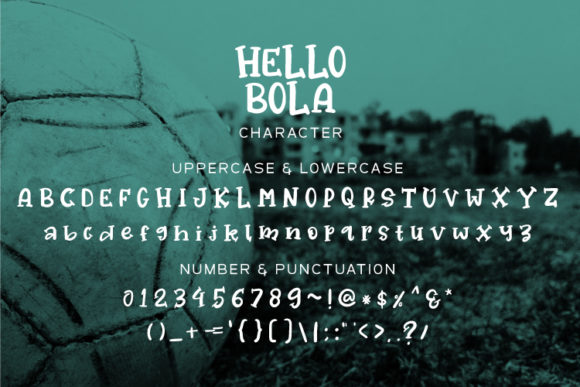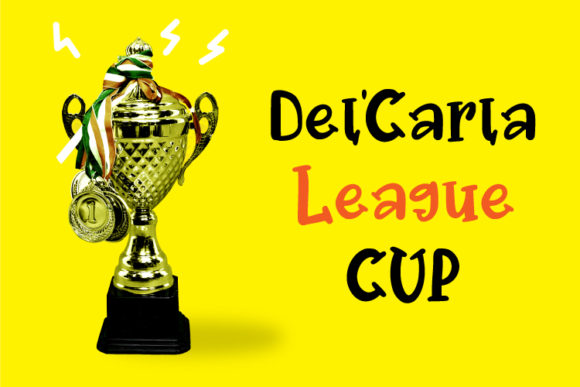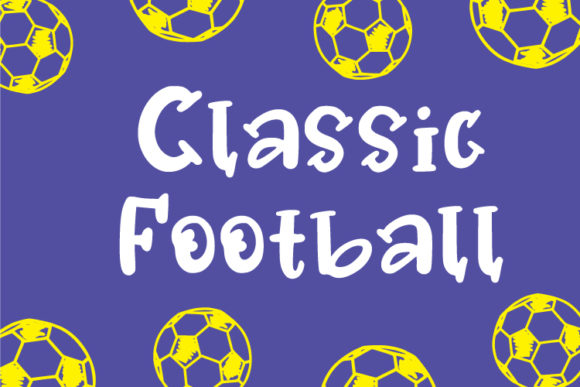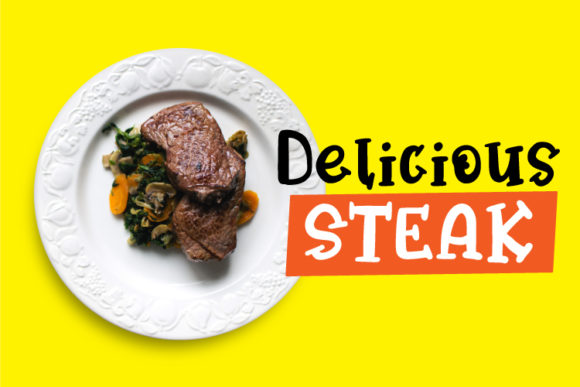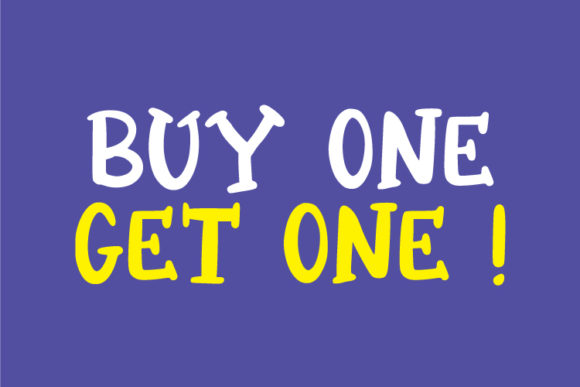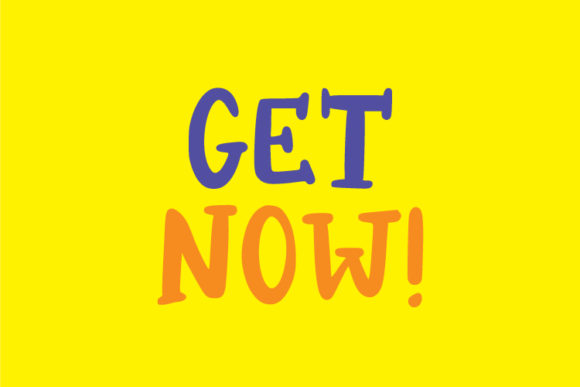
Introduction to Hello Bola Font
Hello Bola is a fresh and relaxed display font.
It is perfect for poster designs, book covers, merchandise, fashion campaigns, newsletters, advertising, magazines, greeting cards, album covers and much more .
Key Features of Hello Bola Font
Why Choose Hello Bola Font?